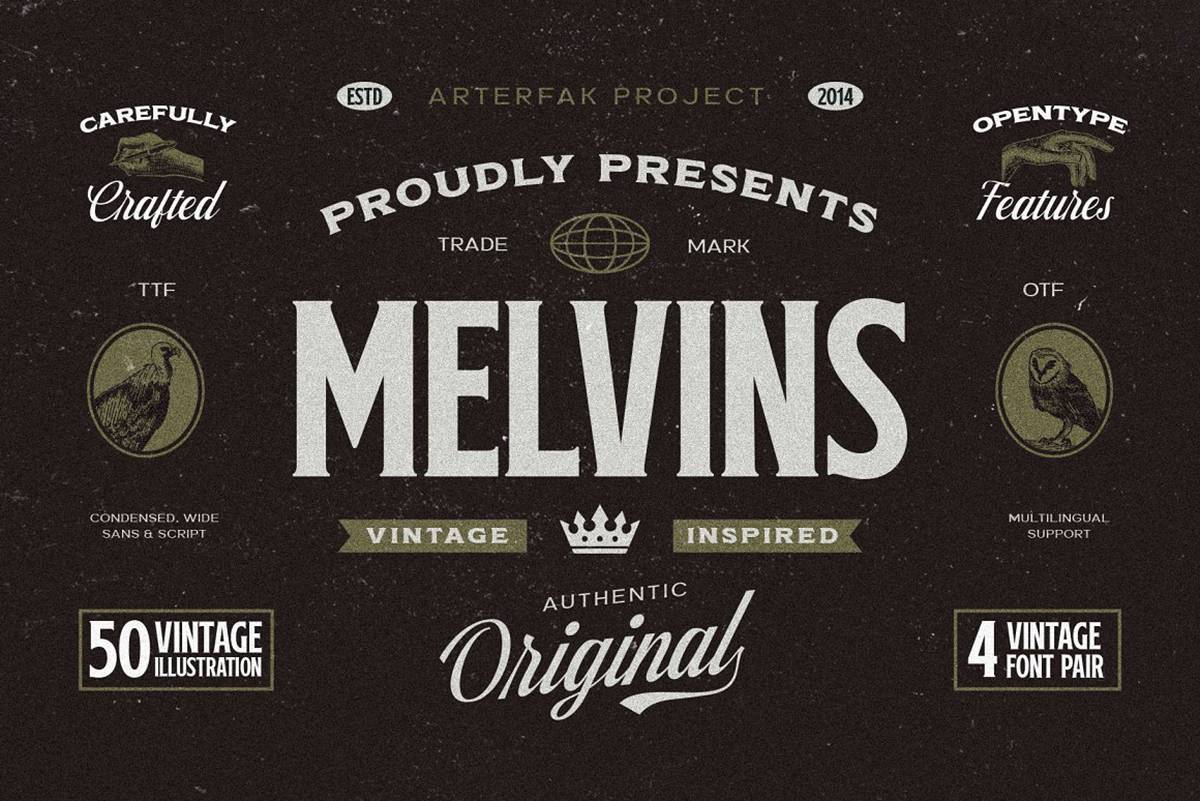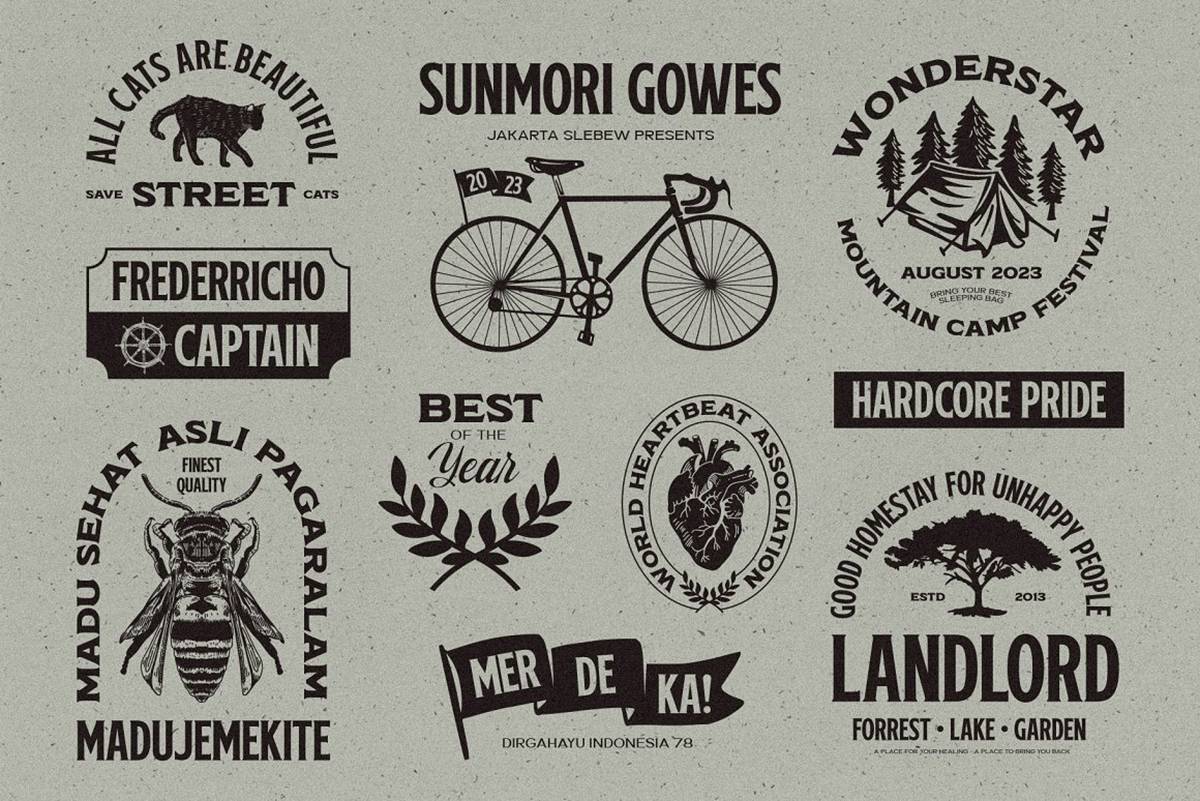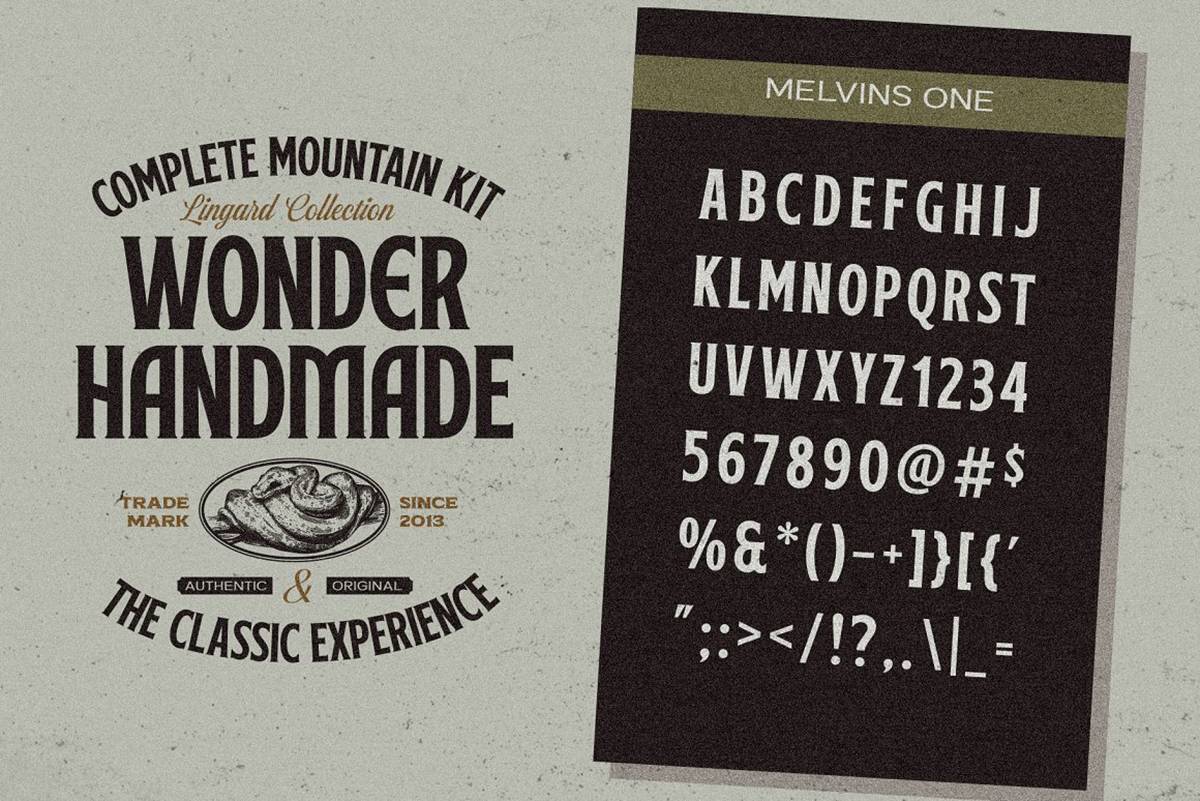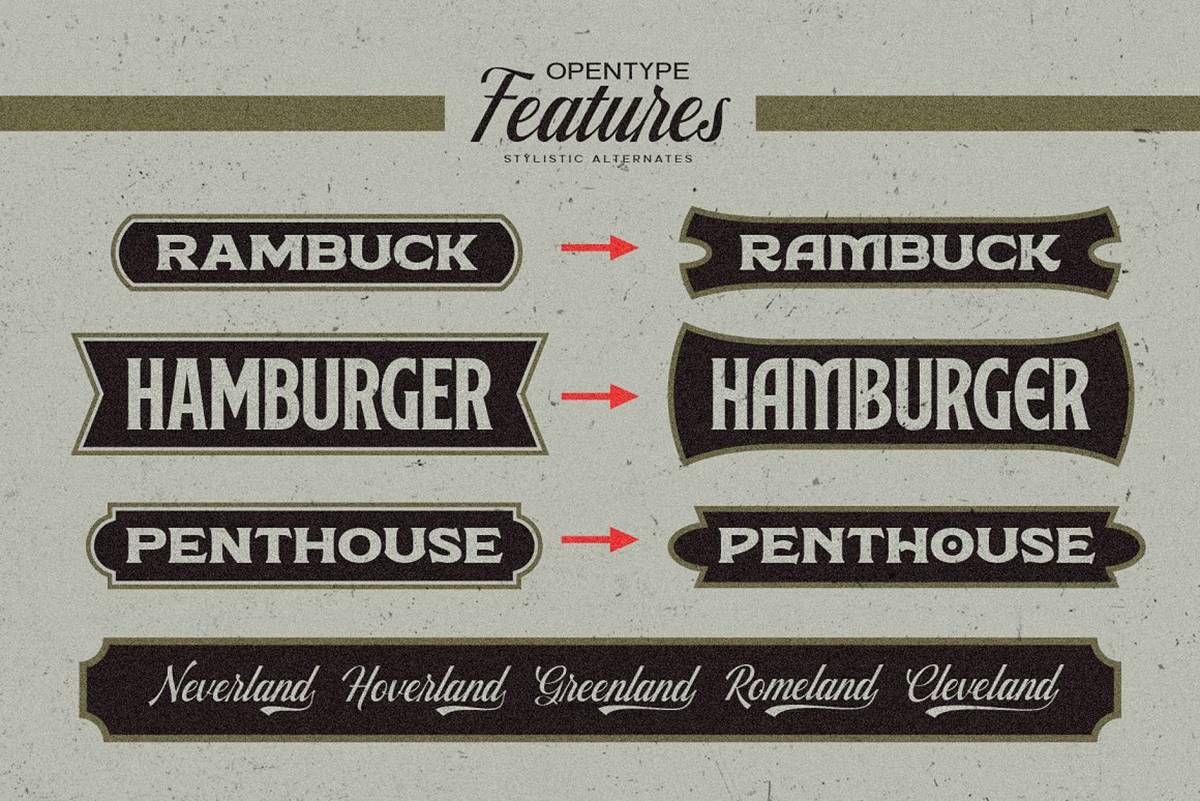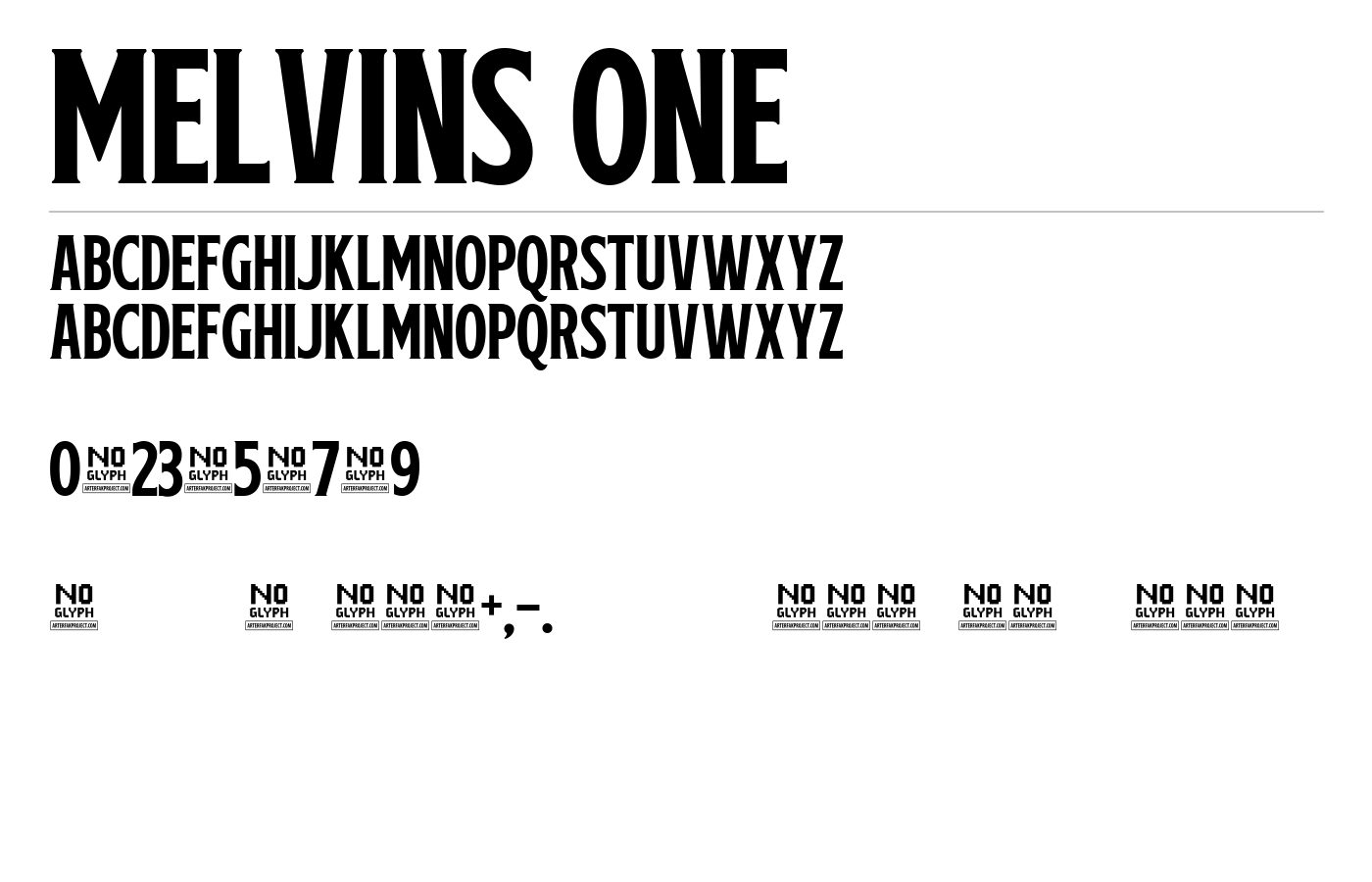
Melvins is a bold and condensed serif font with a strong vertical emphasis, featuring sharp, bracketed serifs and high stroke contrast that give it a commanding, vintage-inspired character. Its tall letterforms and distinctive old-style details make it ideal for striking headlines, logos, and editorial designs that require a powerful yet refined presence. This font works especially well in branding and display contexts where a serious, authoritative, and classic mood is desired.
Melvins Font
About Melvins Font